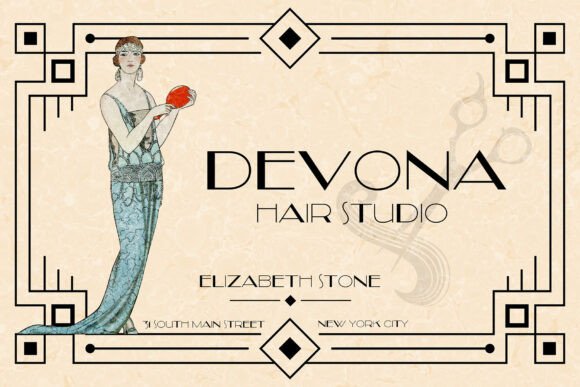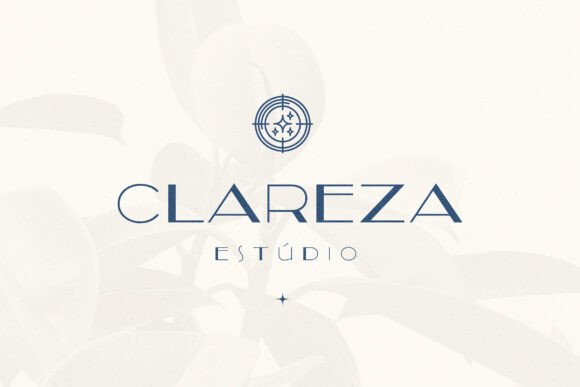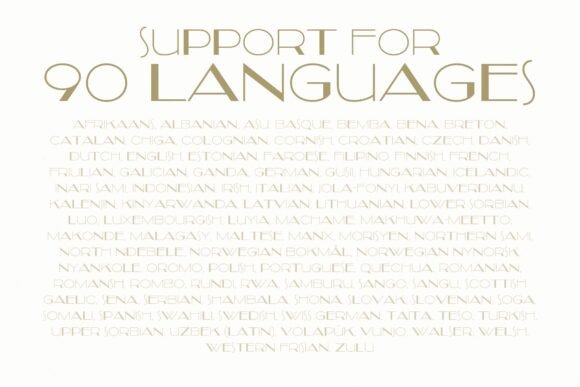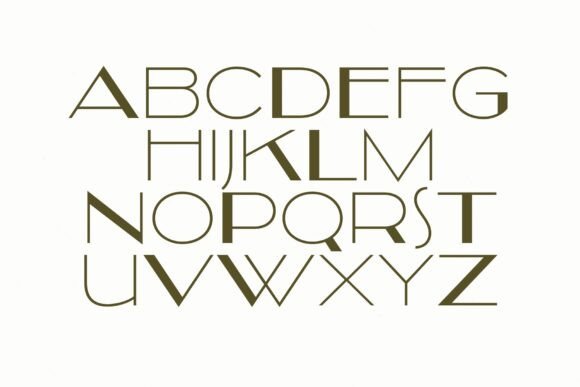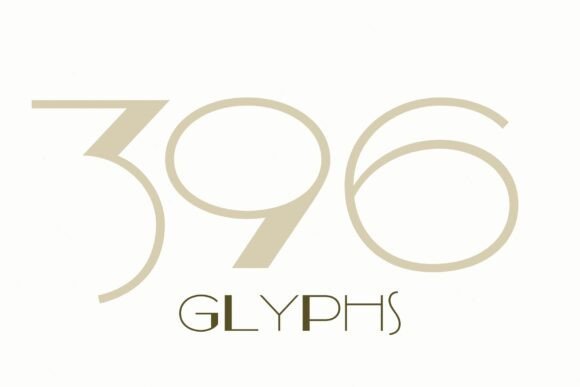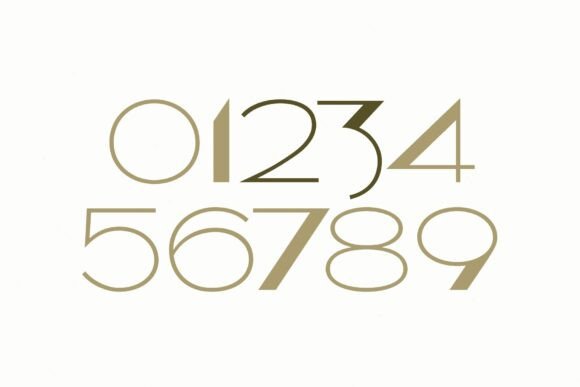
Introduction to Gatsby Nights Font
Step into the shimmering world of the Roaring Twenties with Gatsby Nights, a striking Art Deco typeface that captures the opulence, rhythm, and romance of a bygone era.
With its elegant geometry, lavish curves, and vintage charm, this font feels right at home on grand marquees, luxury branding, and anything that demands a touch of golden-age glamour Meticulously crafted to be both authentic and versatile, Gatsby Nights features 396 refined glyphs and supports over 90 languagesโmaking it perfect for global designers with a taste for timeless sophistication.
Key Features of Gatsby Nights Font
Why Choose Gatsby Nights Font?